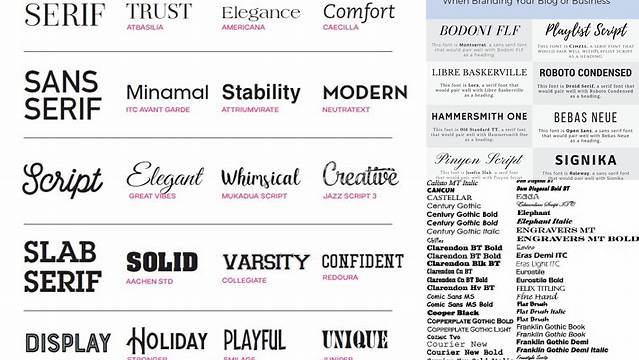
Font Styles: A Comprehensive Guide To Typography
Introduction to Font Styles
Hey guys! Have you ever wondered about the magic behind the words you see every day? It's not just the words themselves, but also the way they're presented – the font styles! Fonts are like the clothes our words wear; they give personality, set the tone, and make reading a whole lot more engaging. Understanding the different types of font styles is crucial, whether you're designing a website, creating a presentation, or even just choosing a font for your resume. Think of font styles as the voice of your text. A strong, bold font might shout confidence, while a delicate, script font could whisper elegance. Different font styles evoke different emotions and are suitable for various purposes. So, diving into the world of fonts isn't just about aesthetics; it's about effective communication. This comprehensive guide will walk you through the most common font styles, their characteristics, and how to use them effectively. We'll explore the classic categories like Serif and Sans-serif, venture into the expressive world of Script fonts, and even touch on the more decorative and specialized styles. By the end, you'll be a font aficionado, ready to make informed choices that enhance your message and captivate your audience. So, let's get started and unlock the secrets of typography together!
Serif Fonts: The Traditional Choice
Let's kick things off with serif fonts, which are often considered the traditional choice. These fonts are characterized by the small decorative strokes, or “serifs,” that extend from the ends of the letters. Think of them as the little feet that give each character a grounded and classic feel. Serif fonts have a long history, dating back to the early days of printing, and they've been a staple in books, newspapers, and formal documents for centuries. The serifs themselves serve a purpose beyond aesthetics. They are believed to help guide the reader's eye across the page, making long passages of text easier to read. This is why serif fonts are often preferred for body text in print materials. Some of the most popular serif fonts include Times New Roman, Garamond, and Georgia. Times New Roman is perhaps the most ubiquitous, known for its readability and classic appearance. It's a safe choice for formal documents and academic papers. Garamond, on the other hand, has a more elegant and refined feel, making it suitable for books and high-end publications. Georgia is a web-friendly serif font, designed to be clear and legible on screens. When choosing a serif font, consider the tone you want to convey. A font like Times New Roman might be perfect for a serious and professional document, while a font like Garamond could add a touch of sophistication to your design. The subtle differences in serif fonts can make a big impact on the overall impression of your text. Understanding the nuances of each font allows you to select the perfect typeface to match your message and audience. So, next time you see a book or a newspaper, take a closer look at the font – chances are, it's a serif font working its magic to make reading a smooth and enjoyable experience.
Sans-Serif Fonts: Modern and Clean
Now, let's switch gears and talk about sans-serif fonts. These fonts are the cool, modern cousins of serif fonts. The term “sans-serif” literally means “without serifs” in French, so you can immediately picture these fonts as clean, minimalist, and lacking those little decorative strokes. Sans-serif fonts are all about simplicity and clarity. They tend to have a more contemporary feel, making them a popular choice for digital displays, websites, and modern designs. Their clean lines and uncluttered appearance make them highly legible on screens, where the lower resolution can sometimes make serifs appear blurry. Think of the iconic Helvetica, Arial, and Futura – these are some of the most well-known and widely used sans-serif fonts. Helvetica, in particular, is a design world superstar, known for its neutrality and versatility. It's used everywhere from corporate logos to signage systems. Arial is another common choice, often considered a more accessible alternative to Helvetica. Futura, with its geometric shapes and sleek lines, exudes a sense of modernity and sophistication. Sans-serif fonts are often associated with a sense of efficiency and directness. They're great for headlines, subheadings, and any text that needs to grab attention quickly. However, they can also work well for body text, especially in digital formats. When choosing a sans-serif font, consider the overall aesthetic you're aiming for. A font like Helvetica might be perfect for a minimalist website, while a font like Futura could add a touch of elegance to a branding project. The key is to find a font that aligns with your message and the visual style of your design. So, next time you're browsing the web or admiring a modern logo, take a moment to appreciate the clean lines and simplicity of sans-serif fonts – they're a testament to the power of minimalist design.
Script Fonts: Elegant and Expressive
Alright, guys, let’s dive into the world of script fonts! If serif and sans-serif fonts are the workhorses of typography, then script fonts are the artists. These fonts are designed to mimic the flowing strokes of handwriting, bringing a touch of elegance, personality, and expressiveness to your text. Think of them as the handwritten note in a digital world – they add a personal touch that can’t be replicated by other font styles. Script fonts come in a wide variety of styles, ranging from formal and elegant to playful and casual. Formal script fonts, like those inspired by calligraphy, are often used for invitations, certificates, and other formal occasions. They exude sophistication and refinement, making them perfect for adding a touch of class. Casual script fonts, on the other hand, are more relaxed and informal. They can be used for greeting cards, logos, and designs that need a friendly and approachable feel. Imagine the difference between a formal wedding invitation and a handwritten thank-you note – that's the spectrum of styles that script fonts offer. Some popular script fonts include Brush Script, which has a bold and energetic feel, and Pacifico, which is a more casual and friendly option. These fonts can add a unique touch to your designs, but it's important to use them sparingly. Because they're often more decorative and less legible than serif or sans-serif fonts, script fonts are best used for headings, logos, and short bursts of text. Overusing them can make your text difficult to read and detract from your message. When choosing a script font, consider the overall tone and style of your design. A formal script font might be perfect for a wedding invitation, while a casual script font could be a great choice for a children's book. The key is to find a font that enhances your message and adds a touch of personality without sacrificing readability. So, go ahead and explore the expressive world of script fonts – they're a fantastic way to add a personal and artistic touch to your designs.
Decorative Fonts: Unique and Eye-Catching
Now, let's explore the wild and wonderful world of decorative fonts! These fonts are the rebels of the typography universe – they break the rules, defy conventions, and grab your attention with their unique and eye-catching designs. Decorative fonts are all about making a statement. They're not designed for long passages of text; instead, they're meant to be used sparingly for headings, logos, posters, and other applications where you want to make a big impact. Think of them as the bold accessories that can transform an outfit – they add flair, personality, and a touch of drama. Decorative fonts come in an endless variety of styles, from vintage and retro to futuristic and whimsical. Some decorative fonts mimic the look of hand-drawn lettering, while others feature bold geometric shapes or intricate details. They can evoke a wide range of emotions, from nostalgia and whimsy to excitement and intrigue. Because of their unique and often quirky designs, decorative fonts can be tricky to use. It's important to choose a font that aligns with your message and the overall style of your design. Overusing decorative fonts can create a chaotic and cluttered look, so it's best to use them sparingly and in combination with more neutral fonts. Imagine a movie poster with a bold, eye-catching decorative font for the title – that's the kind of impact these fonts can have. When choosing a decorative font, consider the mood you want to create. A vintage-inspired font might be perfect for a retro-themed poster, while a futuristic font could add a sense of innovation to a tech company's logo. The key is to find a font that stands out without overshadowing your message. So, if you're looking to add some personality and flair to your designs, don't be afraid to explore the world of decorative fonts – they're a fantastic way to make a statement and leave a lasting impression.
Monospace Fonts: Consistent Width and Technical Look
Let's talk about monospace fonts, which are a bit of a niche category but super important in certain contexts. What sets monospace fonts apart is that each character takes up the same amount of horizontal space. Think of it like every letter having its own little box of the same size, no matter if it's a skinny “i” or a wide “m.” This is quite different from proportional fonts (like serif and sans-serif), where letters have varying widths. The most common association with monospace fonts is coding. Programmers love them because the consistent character width makes it easier to read and debug code. It's much simpler to spot errors when characters line up neatly, and indentation is clear. But monospace fonts aren't just for coding! They also have a distinct, technical, and sometimes retro vibe that can be used creatively in design. Think of old typewriters – those used monospace fonts. This gives them a vintage, mechanical feel. You might see monospace fonts used in designs that want to evoke a sense of technology, precision, or nostalgia. Courier New is probably the most well-known monospace font, often used for screenplays and legal documents because of its clarity and no-frills aesthetic. Another popular one is Consolas, which is designed for on-screen readability, making it a favorite among developers. When using monospace fonts in design, it's crucial to consider the context. They're not ideal for long blocks of text because the uniform width can make reading a bit monotonous. But for short snippets of code, tables, or designs that need a technical or retro feel, they can be a fantastic choice. The key is to embrace their unique character and use them intentionally to achieve the desired effect.
Choosing the Right Font: Tips and Considerations
Okay, guys, so now that we've explored the different types of fonts, let's talk about how to choose the right font for your project. This is where the real magic happens – where you get to match the personality of your message with the perfect visual voice. Choosing the right font isn't just about aesthetics; it's about effective communication. The font you choose can influence how your message is perceived, so it's important to consider your audience, your message, and the overall tone you want to convey. Think of it like choosing the right outfit for an occasion – you wouldn't wear a tuxedo to the beach, and you wouldn't use a playful script font for a serious legal document. First, consider your audience. Who are you trying to reach? A formal serif font might be perfect for a professional audience, while a more casual sans-serif font could be better for a younger crowd. Next, think about your message. What are you trying to say? A bold, attention-grabbing font might be ideal for a headline, while a more legible font is essential for body text. And finally, consider the overall tone. Do you want to convey a sense of elegance, modernity, playfulness, or something else entirely? The font you choose should align with the emotions and ideas you want to evoke. One of the most important tips is to limit the number of fonts you use. Using too many fonts can create a cluttered and confusing look. A good rule of thumb is to stick to two or three fonts per project. Choose one font for headings and another for body text, and perhaps a third for accents or captions. It's also crucial to consider readability. A beautiful font is useless if it's difficult to read. Make sure your font is legible at different sizes and in different contexts. Test it on both screens and in print to ensure it looks good across all platforms. Don't be afraid to experiment and try different combinations. Typography is an art, and there's no one-size-fits-all solution. Play around with different fonts and see what works best for your project. And most importantly, trust your instincts. If a font feels right, it probably is. So, go ahead and unleash your inner typographer – with a little practice, you'll be choosing the perfect fonts for your projects in no time!
So, there you have it, guys! We've journeyed through the fascinating world of font styles, from the traditional serifs to the modern sans-serifs, the elegant scripts, the expressive decorative fonts, and the technical monospaces. We've explored their unique characteristics, their ideal uses, and the importance of choosing the right font for your project. Understanding the different types of fonts is a crucial skill for anyone involved in design, communication, or content creation. Fonts are more than just letters on a page – they're powerful tools that can shape the way your message is perceived. They add personality, create mood, and enhance readability. By mastering the art of typography, you can elevate your work and connect with your audience on a deeper level. Remember, choosing the right font is like choosing the right voice for your message. It's about finding the perfect balance between aesthetics and functionality, between style and substance. A well-chosen font can make your text stand out, capture attention, and leave a lasting impression. So, whether you're designing a website, creating a presentation, or writing a document, take the time to consider your font choices. Experiment with different styles, explore new possibilities, and trust your instincts. With a little practice and a keen eye for detail, you'll be well on your way to becoming a typography pro. And who knows, you might even develop a font crush or two along the way! Happy designing, guys!